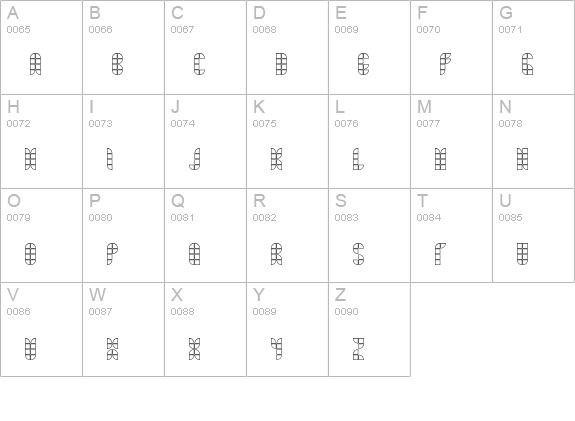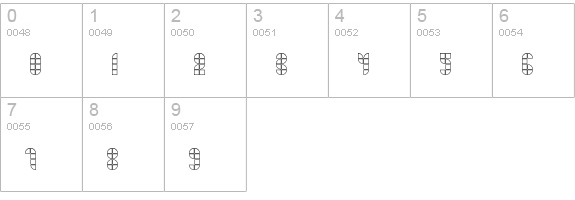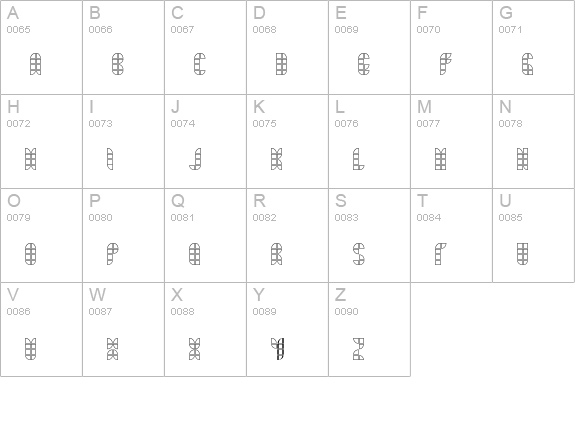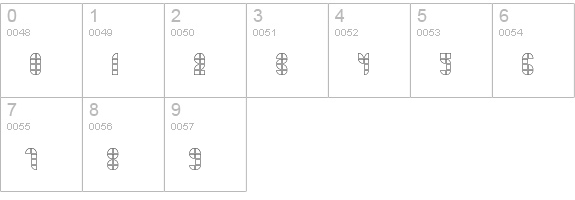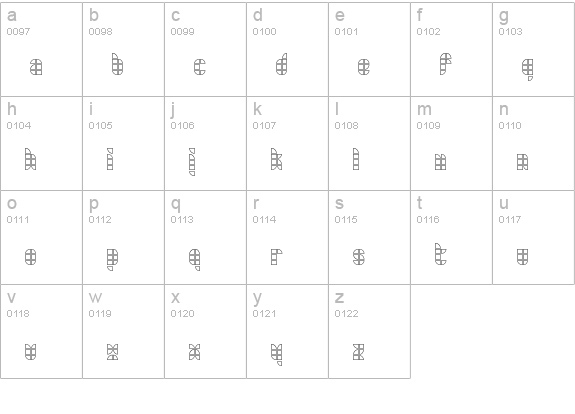
Bath NormalOutline font offers a sleek and modern design with a touch of elegance. This typeface combines clean lines and sharp edges to create a unique and sophisticated look. Perfect for a variety of design projects, from branding to editorial design, this font is sure to make a statement. The best part? Bath NormalOutline font is available for free download at FontsMarket.com! So whether you're working on a personal project or a professional design, you can easily access this stylish font without any cost. Don't miss out on this opportunity to enhance your designs with the timeless appeal of Bath NormalOutline font. Download it now and elevate your typography game!